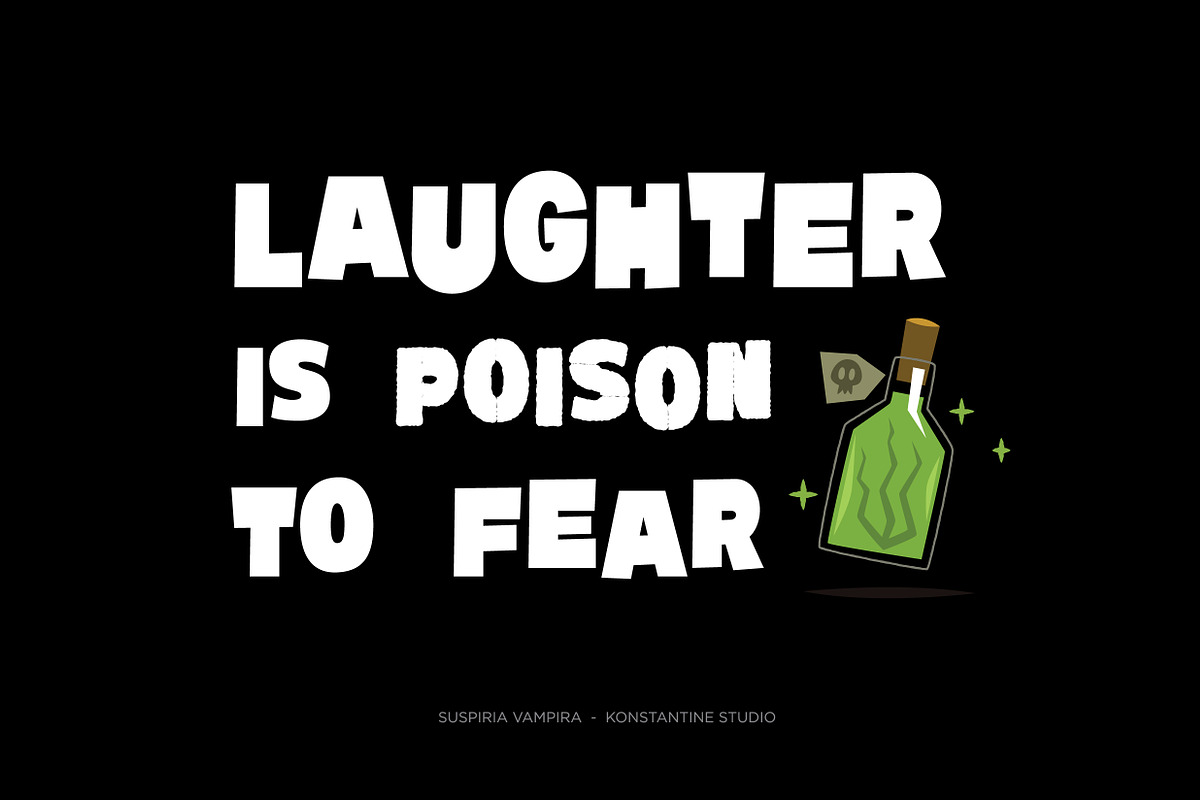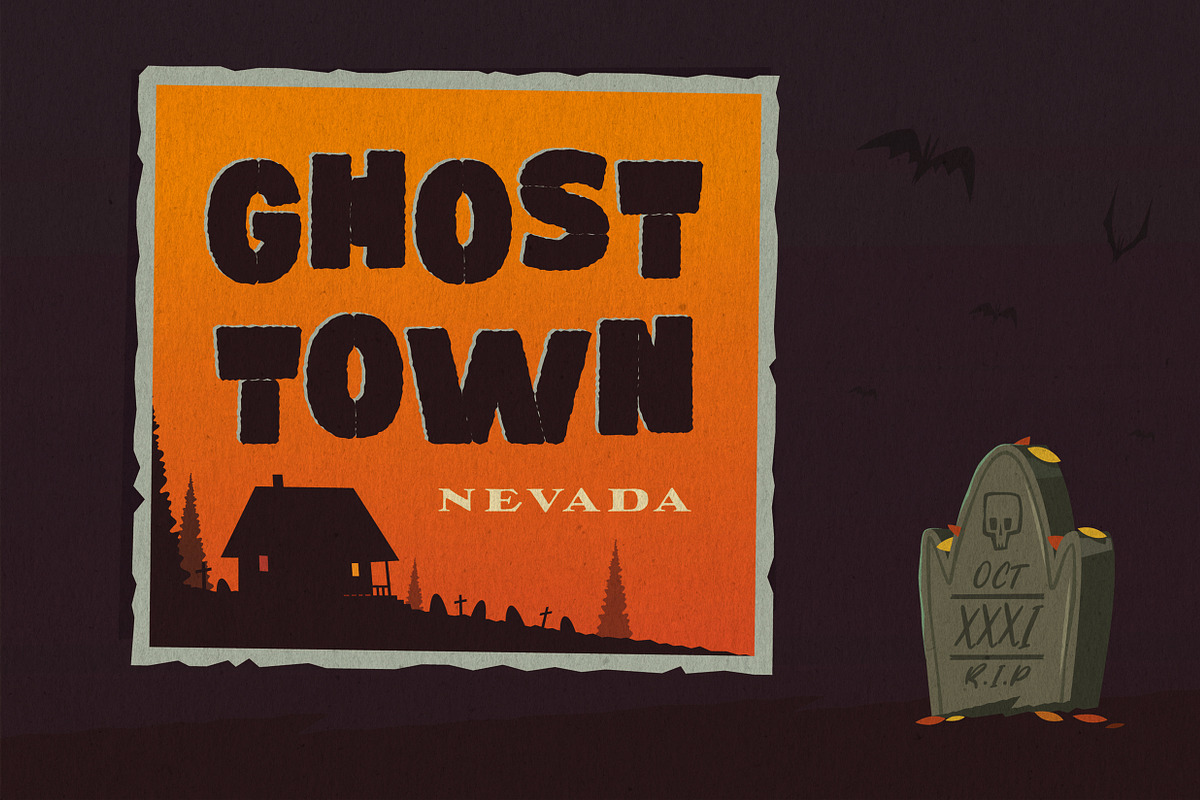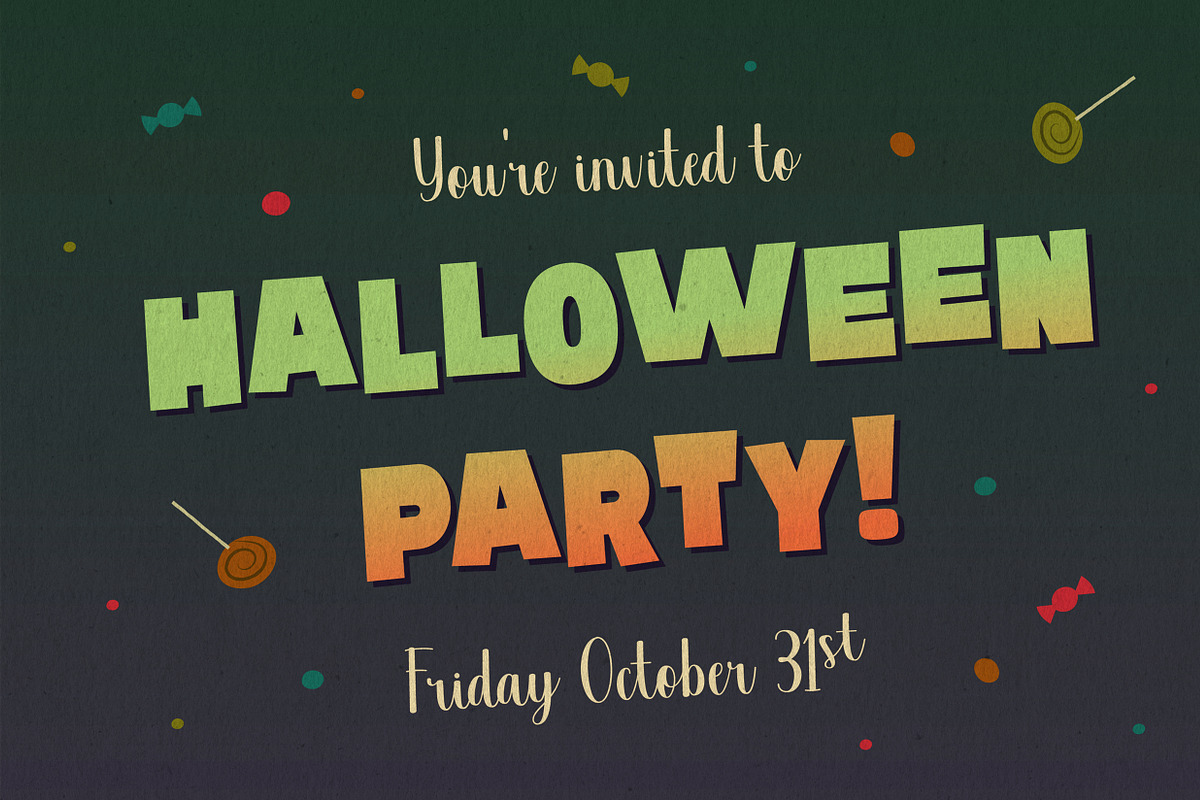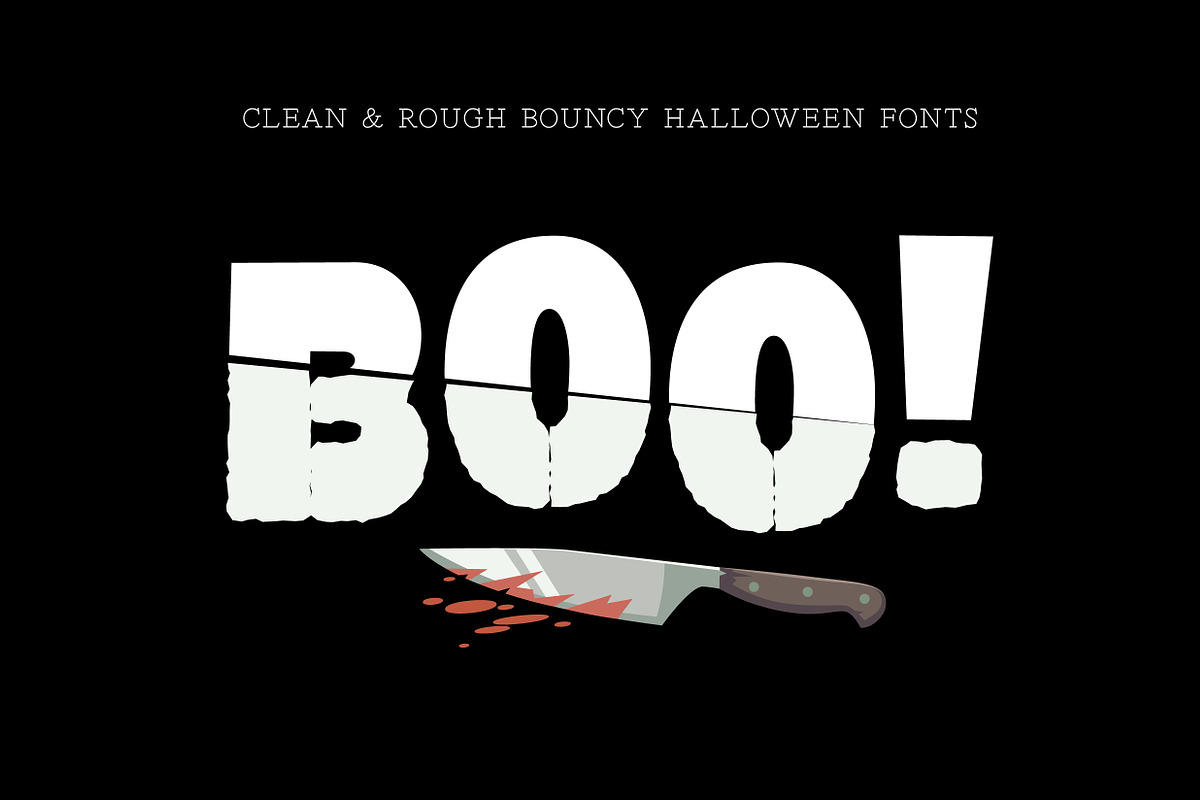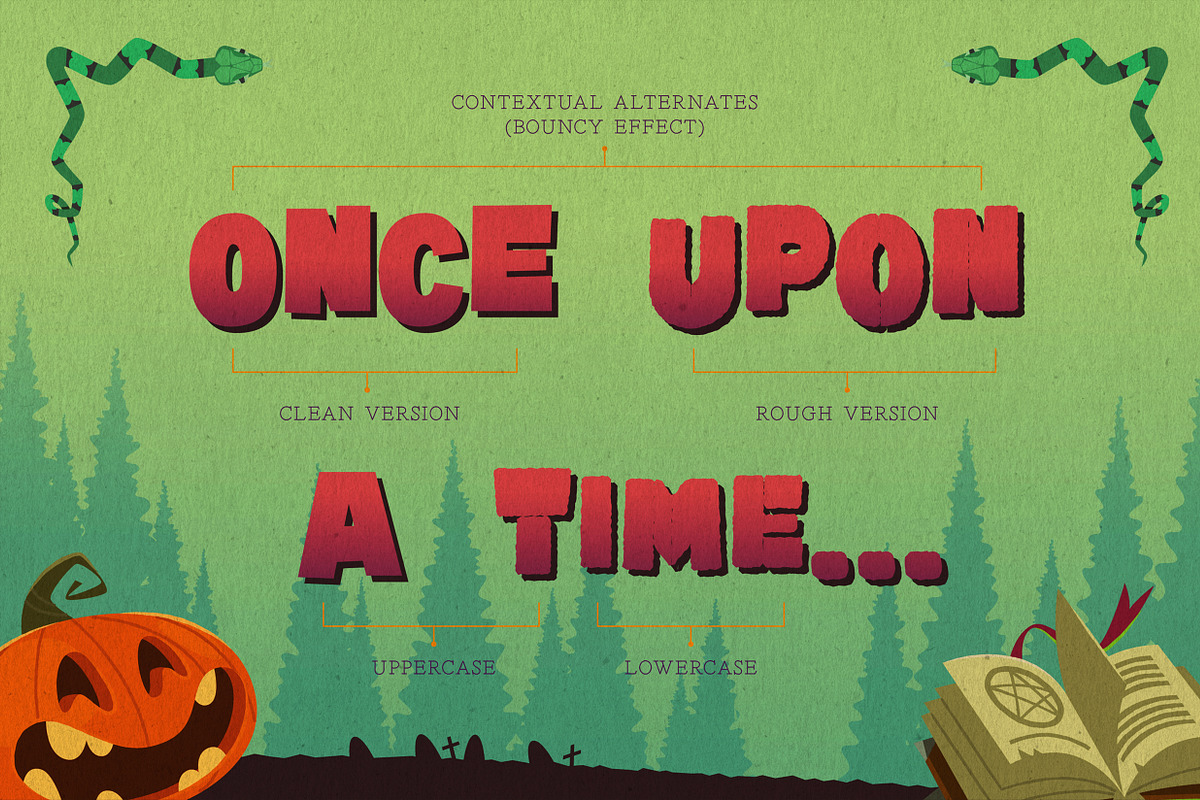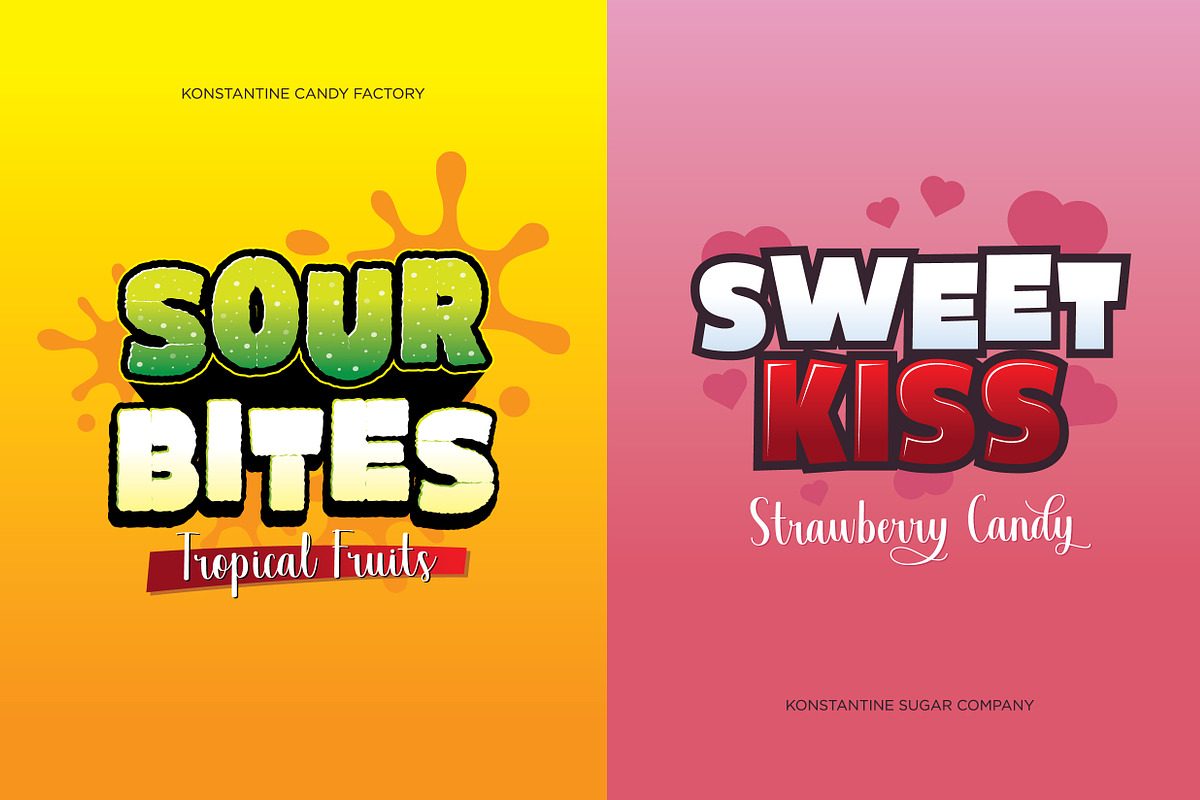
SUSPIRIA VAMPIRA - Bouncy Fonts
Halloween is coming. Get prepared earlier with our Suspiria Vampira. A bold and bouncy fonts with 2 styles, Clean and rough. Very good for a halloween concept, but the versatility level are high in this font. It can be placed into any fun and cheerful branding or event concept. So many possibilities coming up!